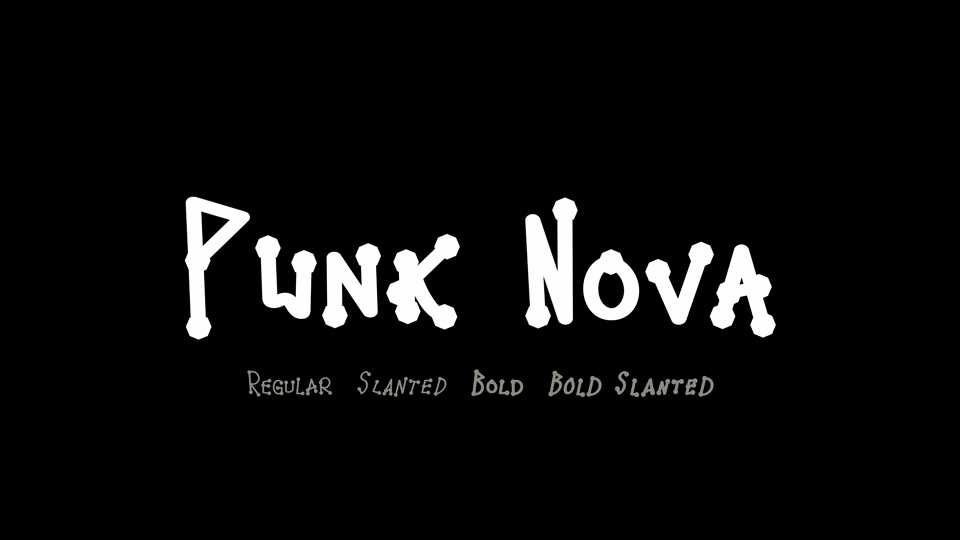
Download Punk Nova typeface, an OpenType implementation of Donald Knuth’s Punk font. Punk Nova is a dynamic font family in four styles and a lot of alternates for each glyph.
Designer: Alif Type